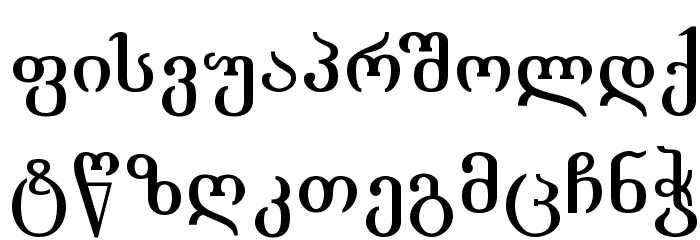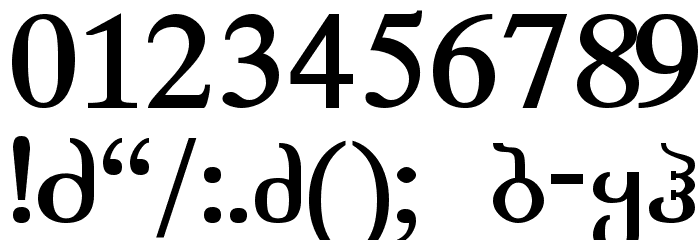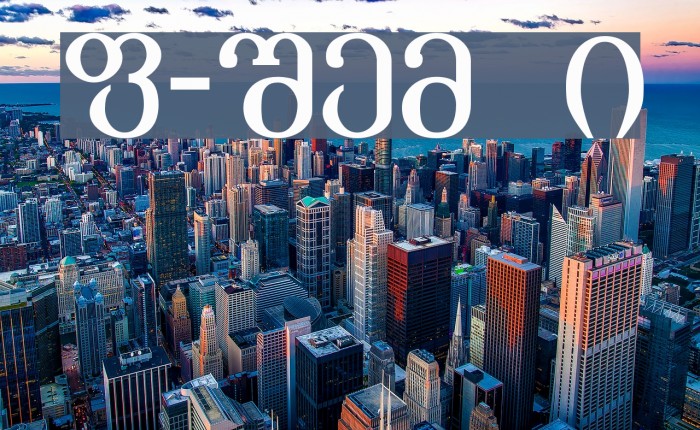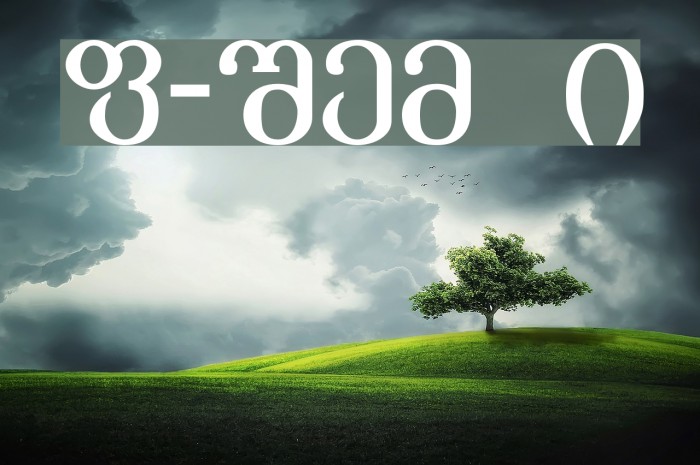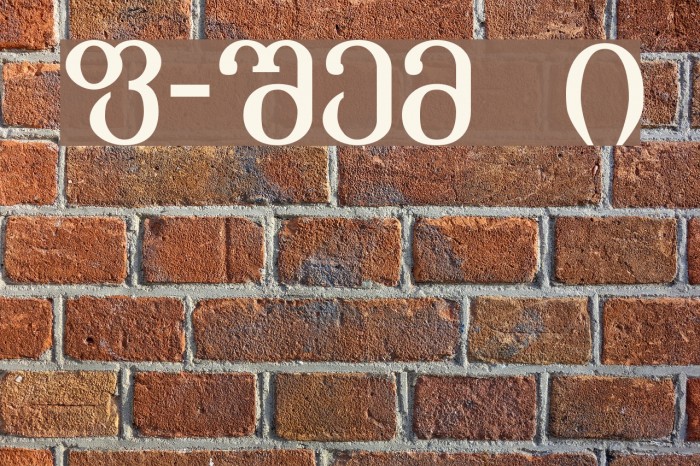
Academiury-ITV Bold Font
This font exhibits a bold and expressive style, characterized by its unique and artistic letterforms. The characters are crafted with a high contrast between thick and thin strokes, giving it a dynamic and elegant appearance. The serifs are pronounced and add a touch of sophistication, while the overall design maintains a sense of modernity. The numerals are clear and distinct, ensuring readability. Special characters are designed with the same attention to detail, making them stand out. The font's aesthetic is both decorative and functional, suitable for a variety of creative applications.
A bold, high-contrast serif font with artistic and expressive letterforms.